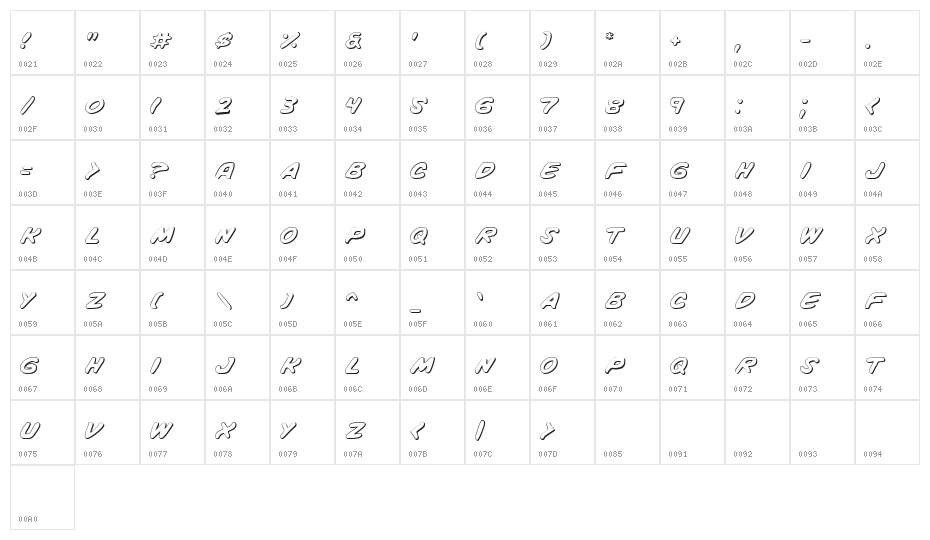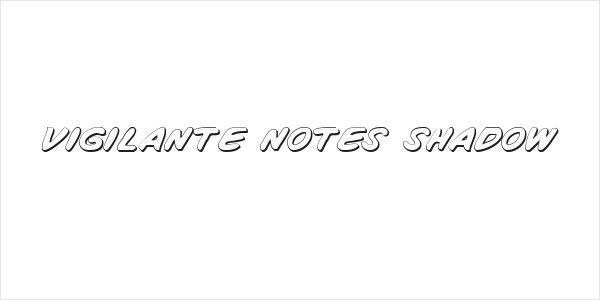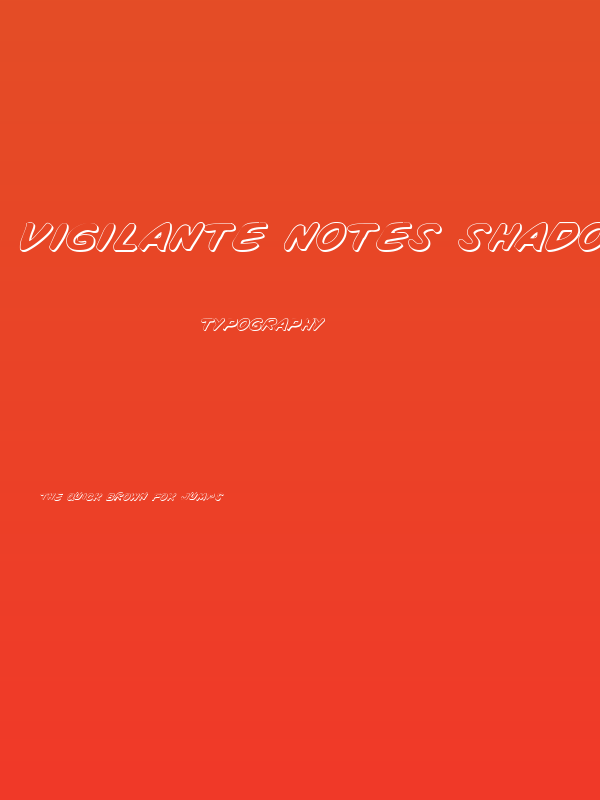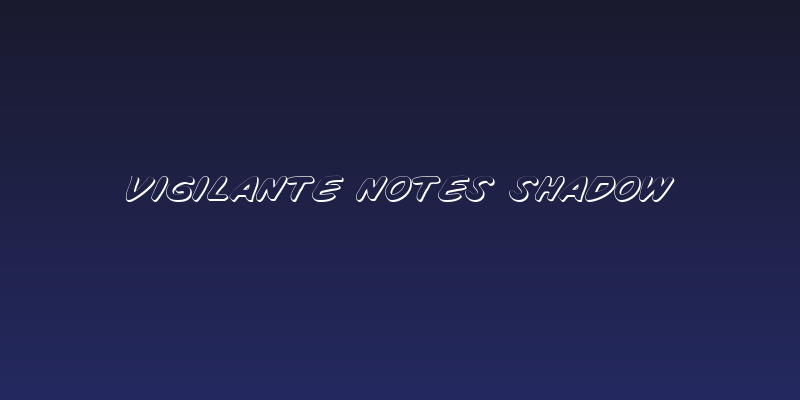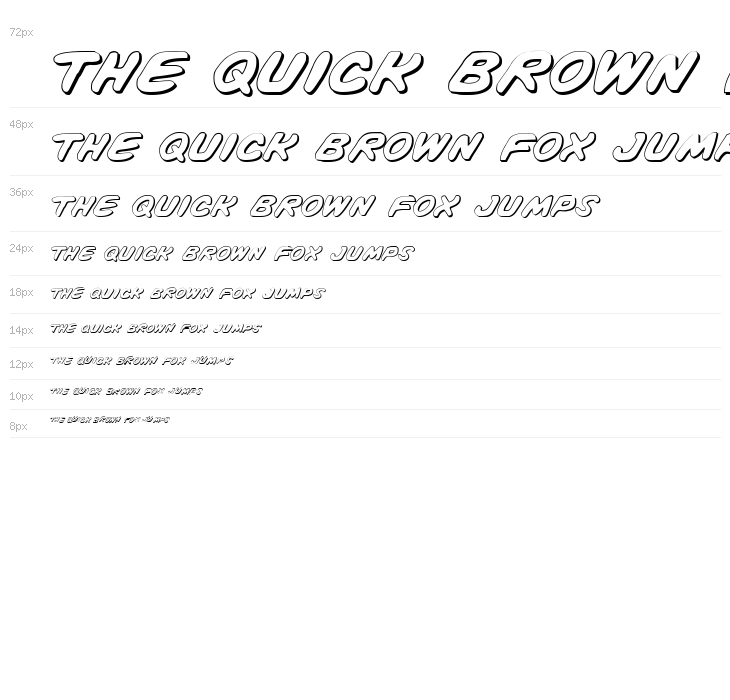
Vigilante Notes Shadow Font
Vigilante Notes Shadow Description
This font features a bold, playful style with a distinct shadow effect that gives it a three-dimensional appearance. The letters are rounded and slightly italicized, creating a sense of movement and dynamism. The shadow adds depth, making the characters stand out prominently. This font is highly legible and has a fun, informal vibe, making it suitable for creative and casual designs. The numerals and special characters maintain the same playful aesthetic, ensuring consistency across all text elements.
Overall StylePlayful, Dynamic
Proposed ProjectsIdeal for comic books, children's books, posters, and playful branding projects.